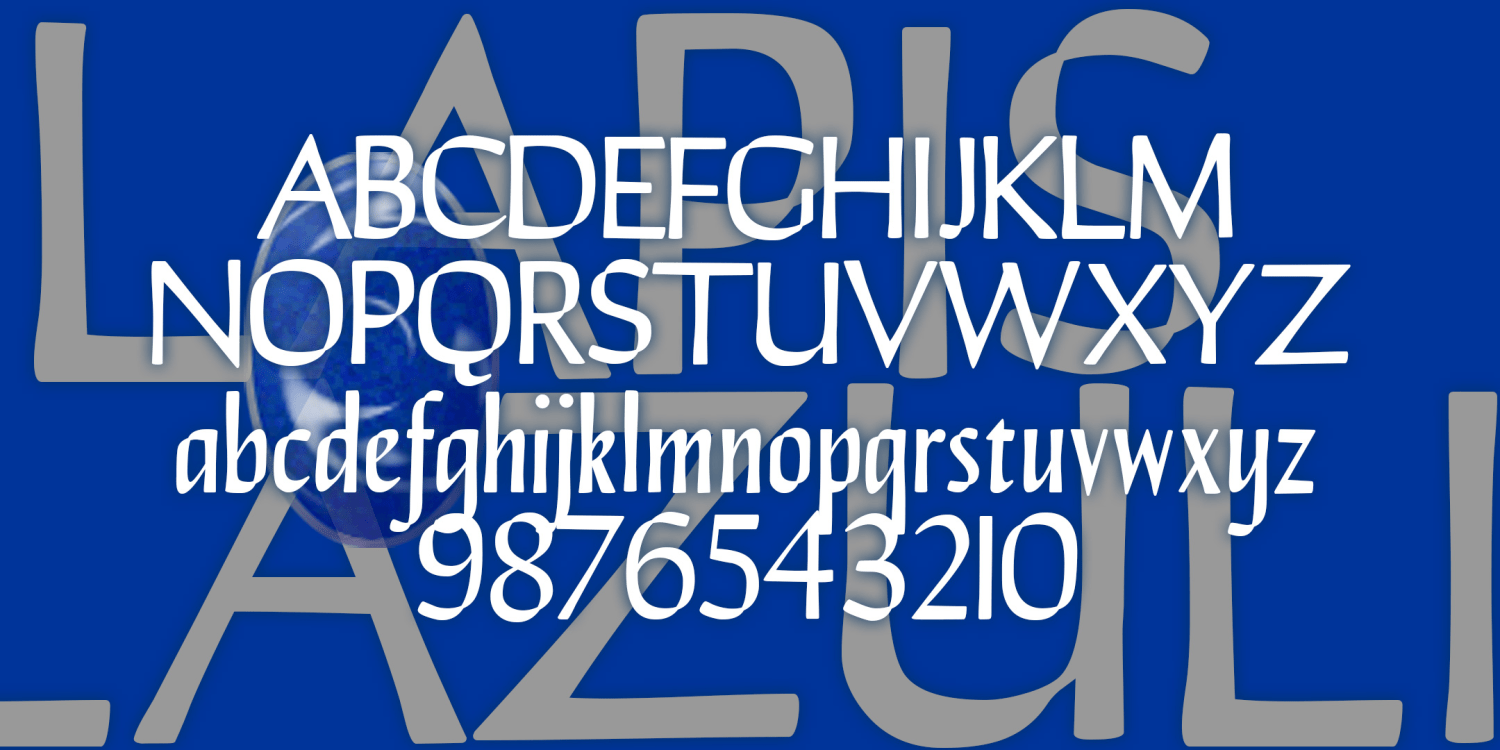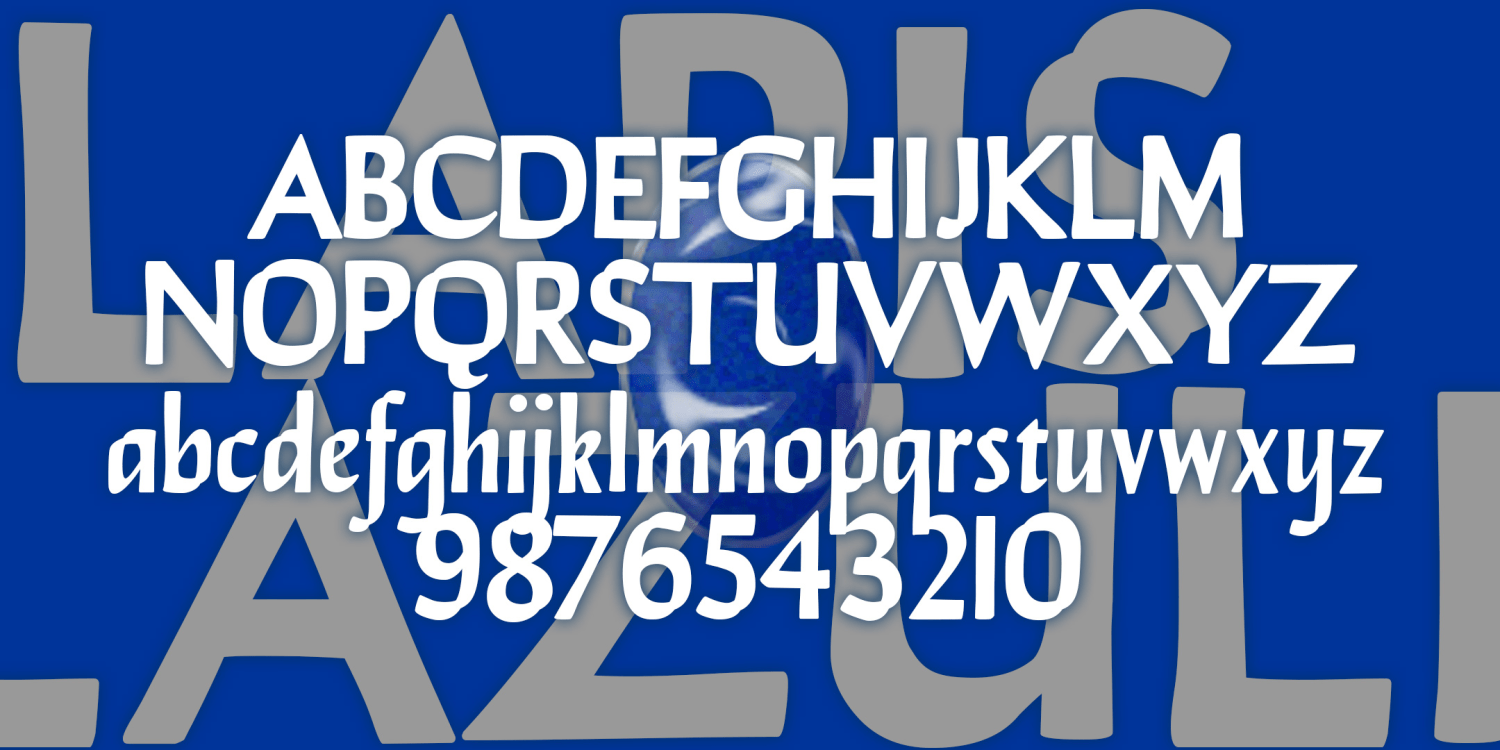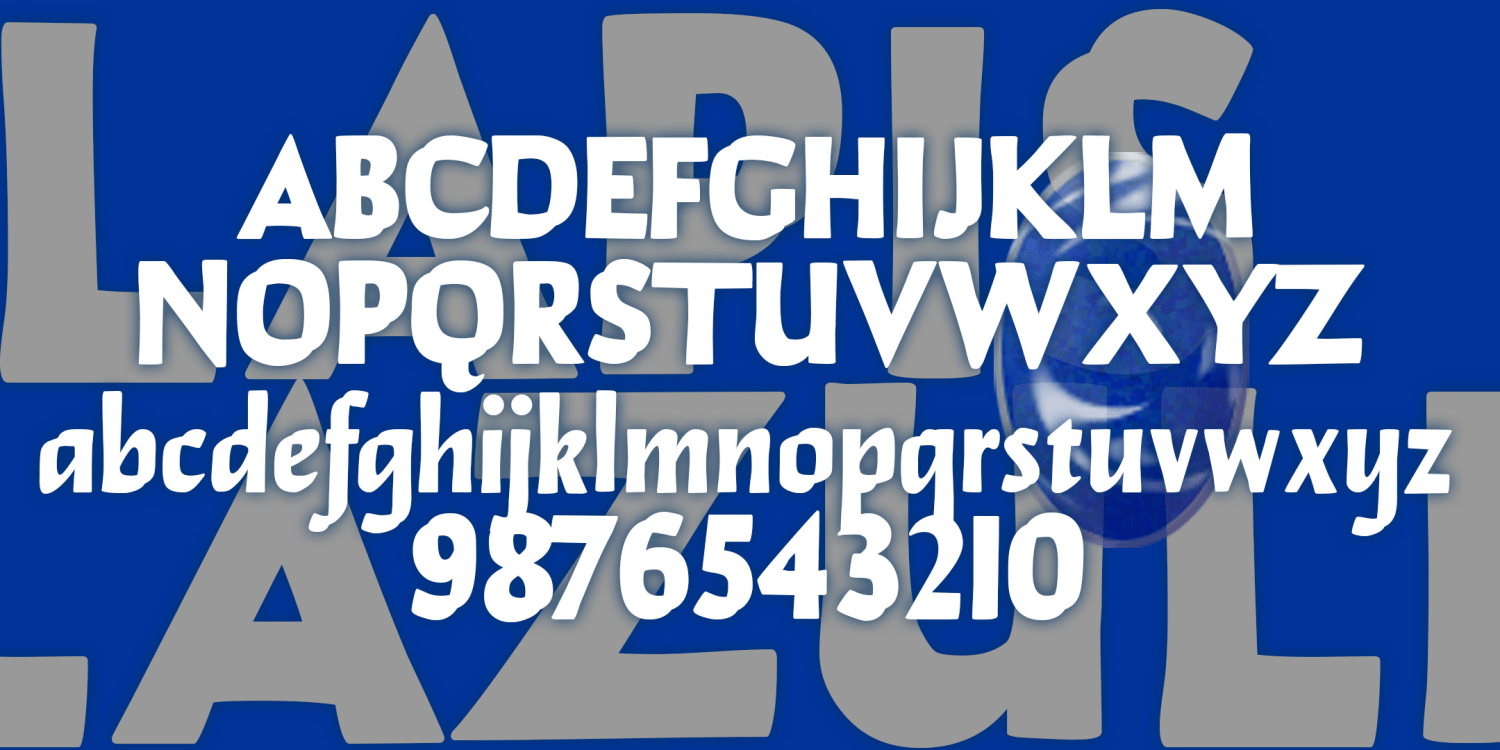
Lapis Lazuli
LAPIS LAZULI is a set of 3 elegant fonts that look like elegant calligraphy. Inspired by a simple, elegant analog font called "Papyrus" in one of Dan X. Solo's great font books, but unrelated to the familiar ITC font of the same name. In completely redrawing the font, I've regularized and expanded it and added 2 more weights, Demi and Bold.